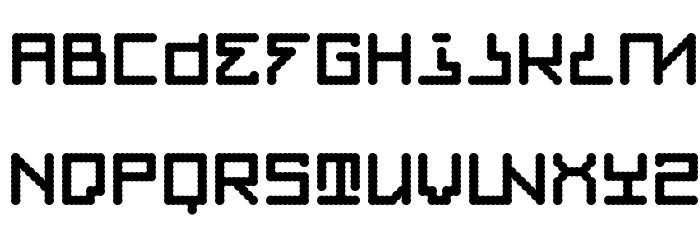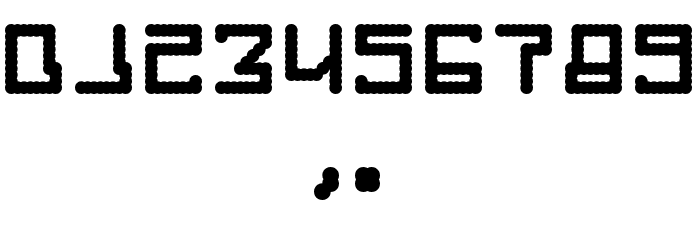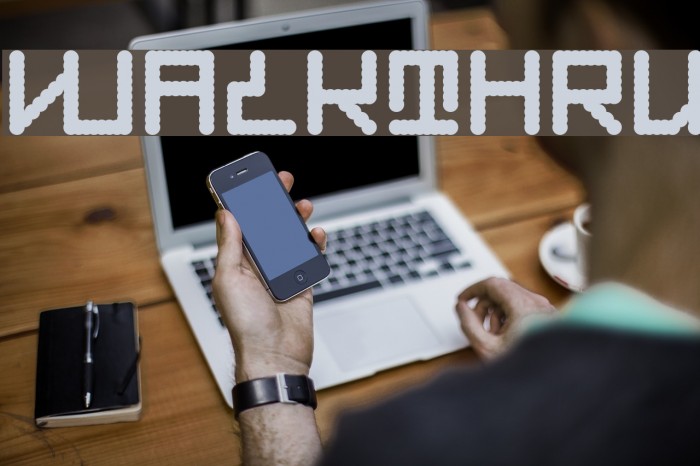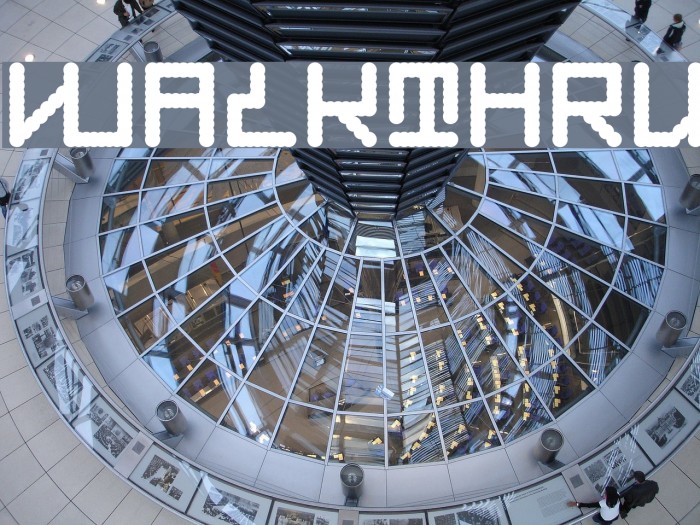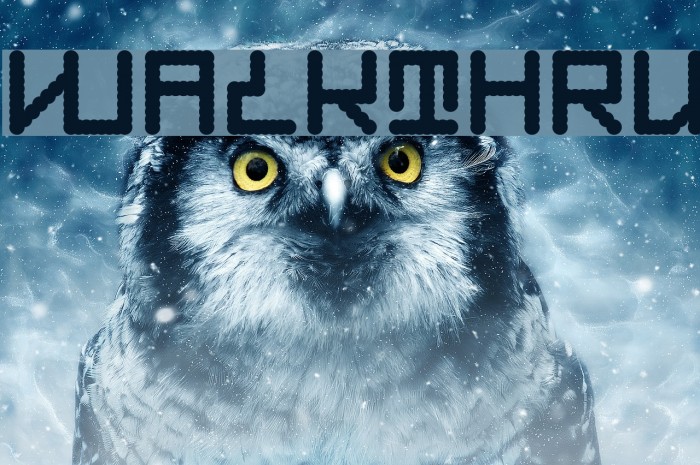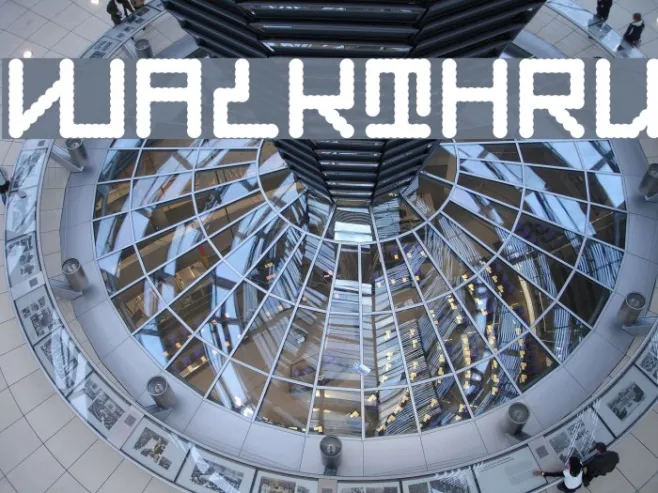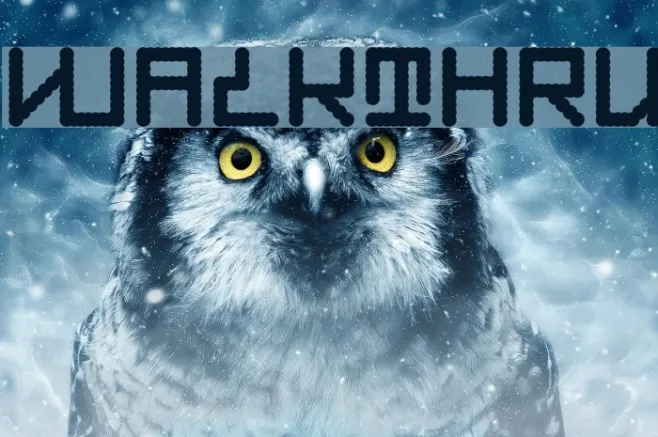
Walkthru Font
This font features a unique, playful design with a dotted, pixelated appearance. Each character is composed of small, rounded dots that form the shape of the letter or number, giving it a digital and modern feel. The uppercase and lowercase letters maintain a consistent style, with a geometric structure that is both bold and eye-catching. The numbers and special characters follow the same design principles, ensuring uniformity across the font. This style is reminiscent of retro digital displays, making it ideal for projects that require a touch of nostalgia or a tech-inspired aesthetic.
A playful, pixelated font with a modern, digital appearance.
- Proposed Projects: Ideal for digital art, retro-themed designs, tech branding, and video game graphics.
- Use Case: Logos, Headlines, Digital displays